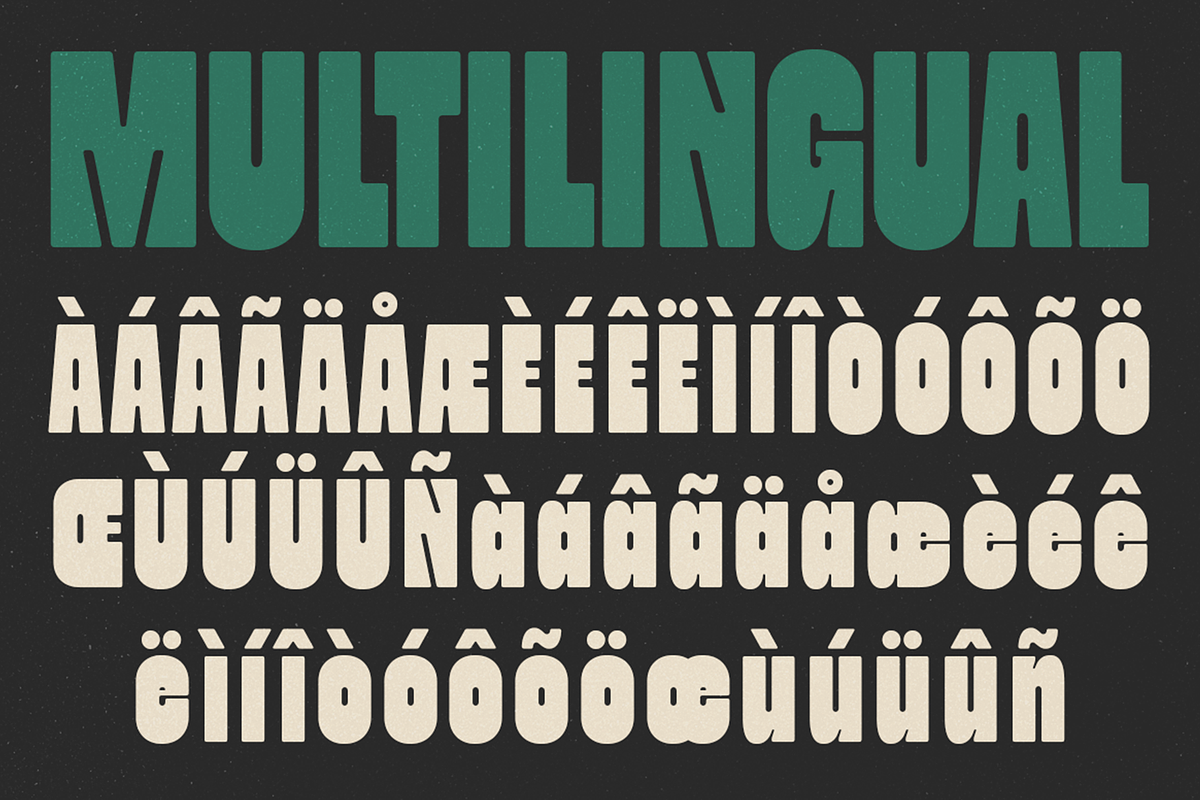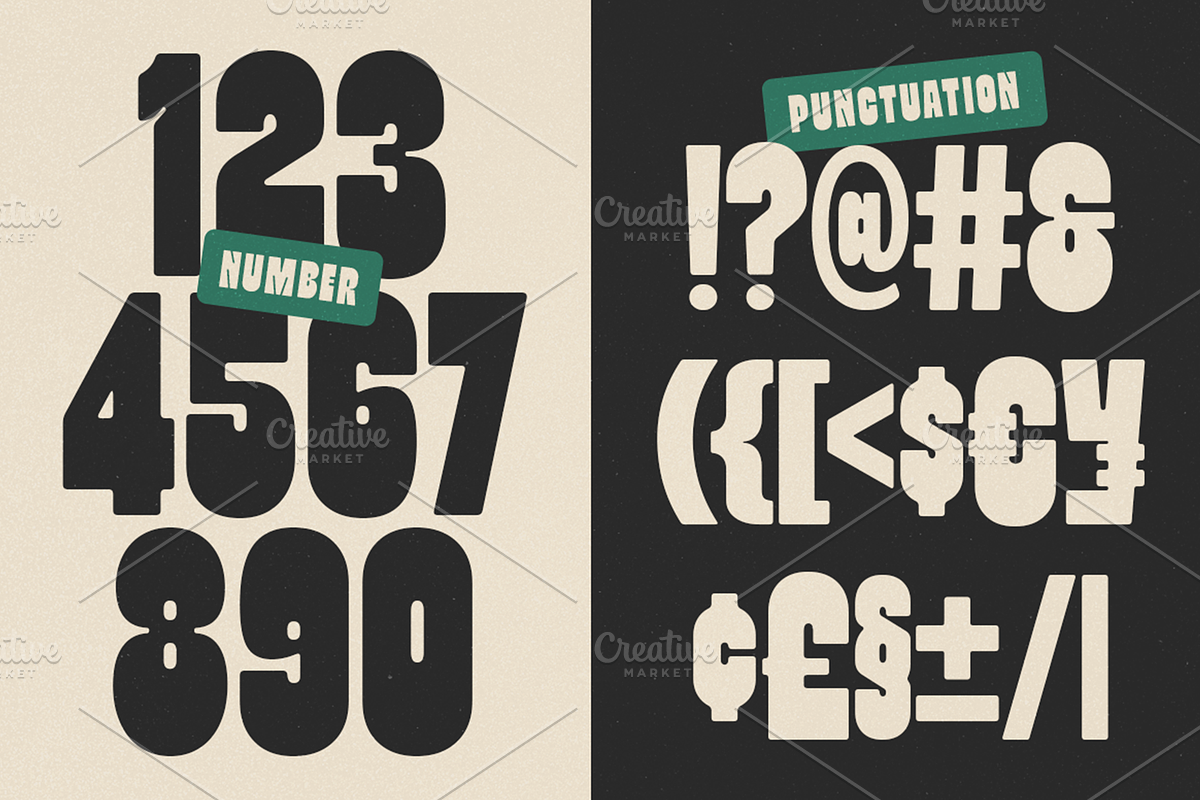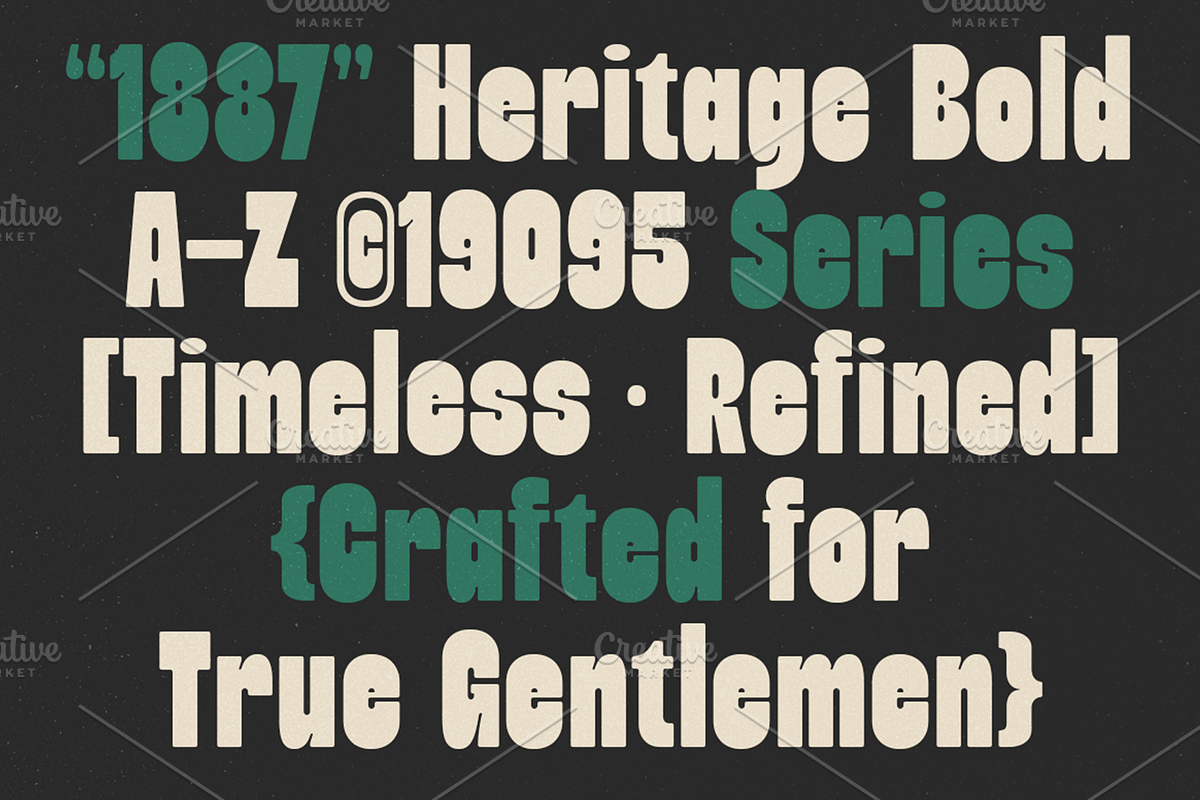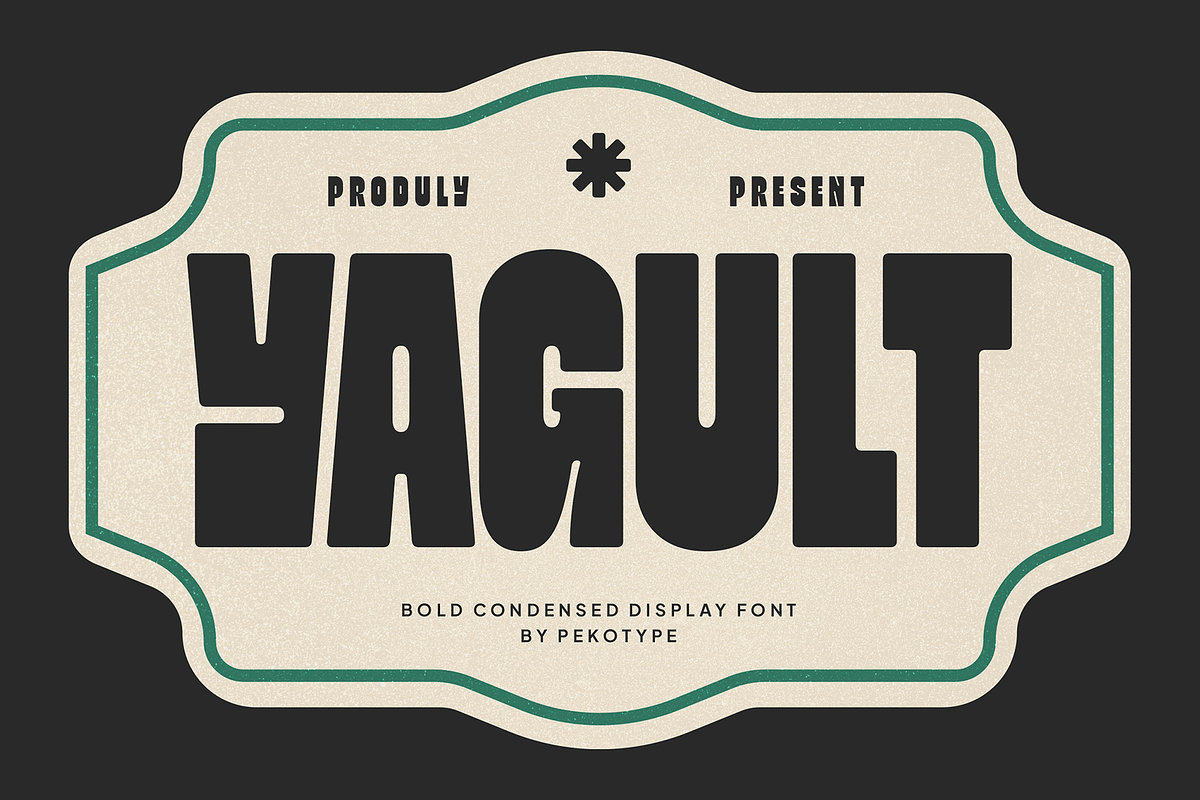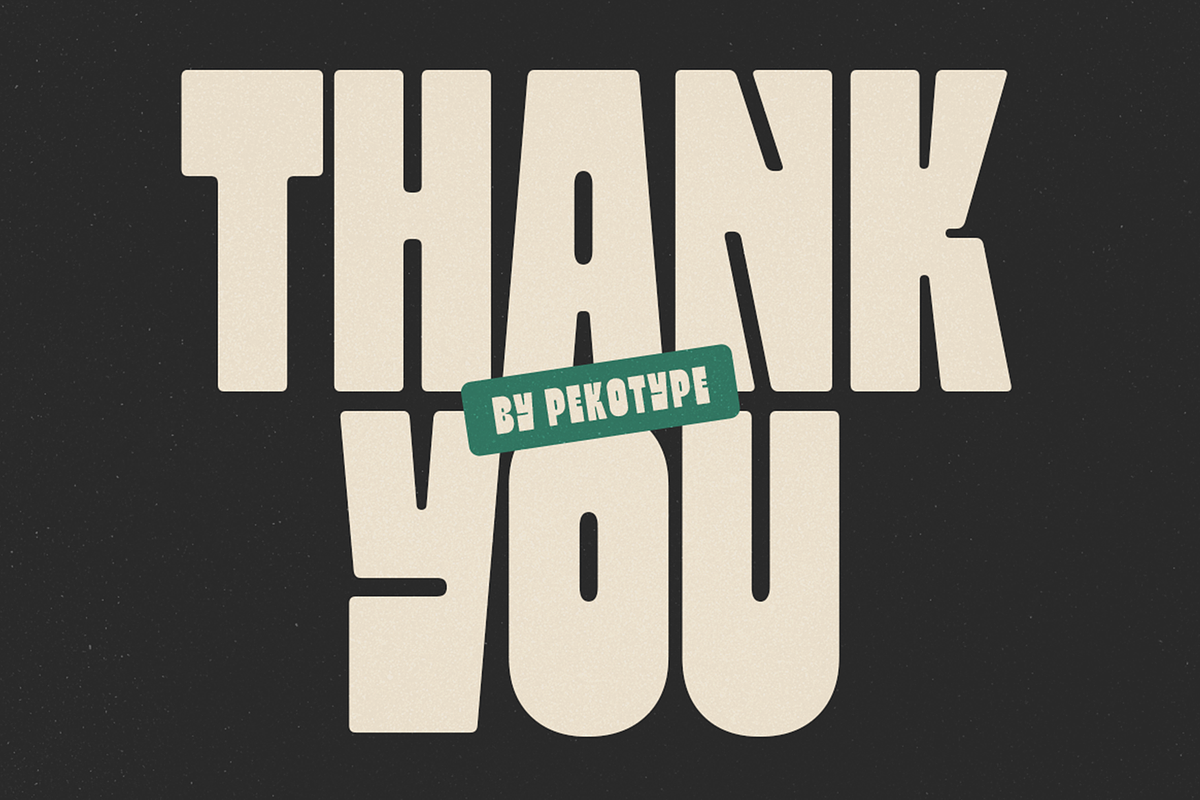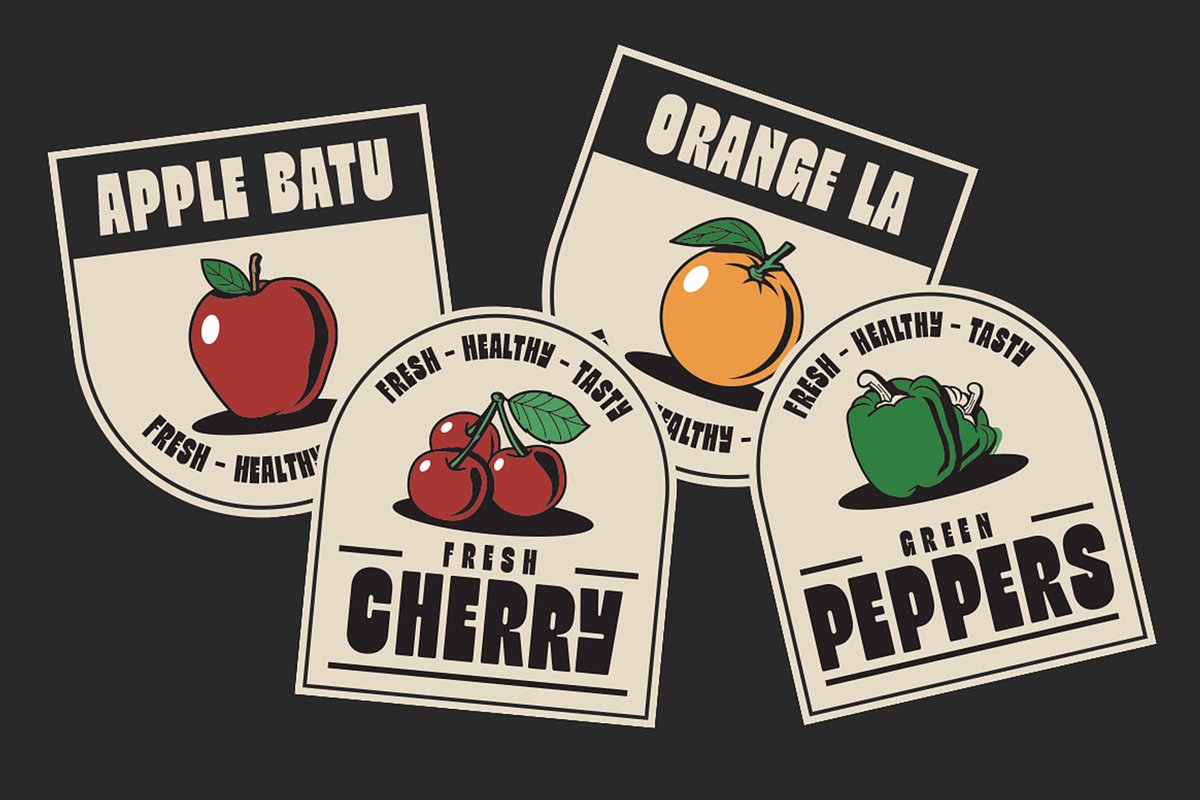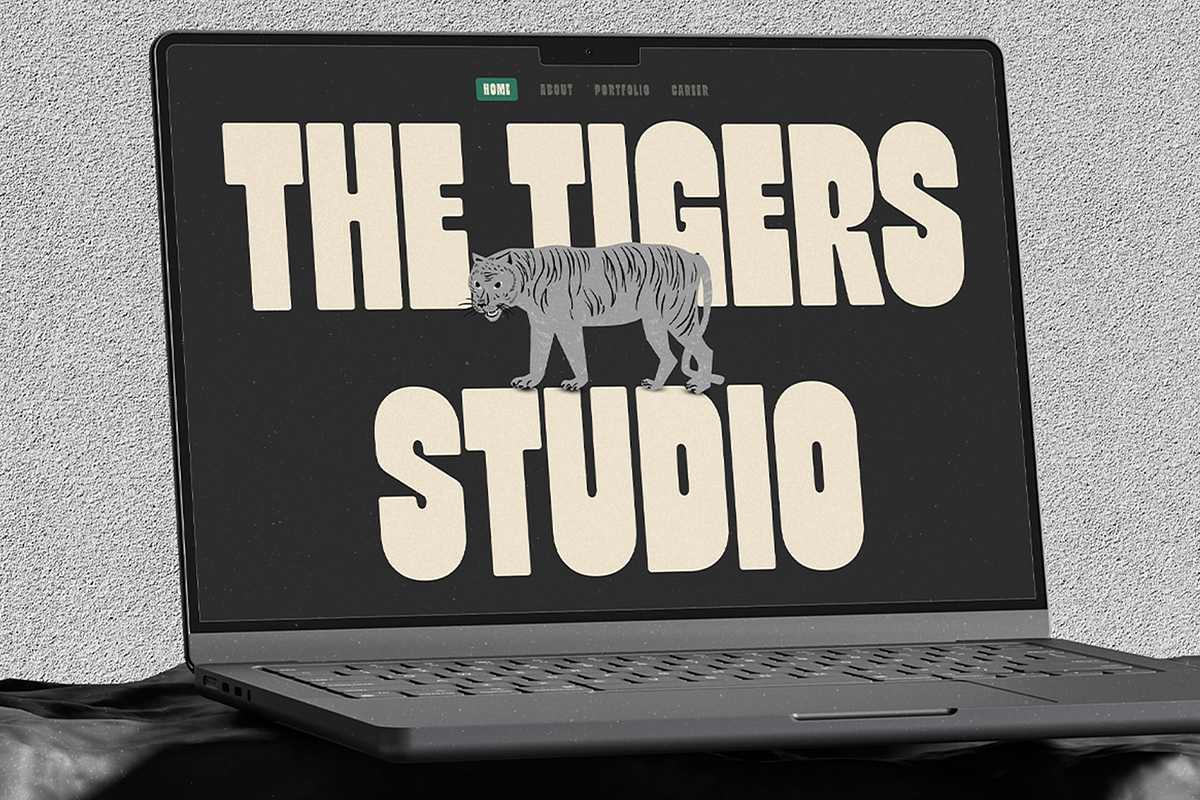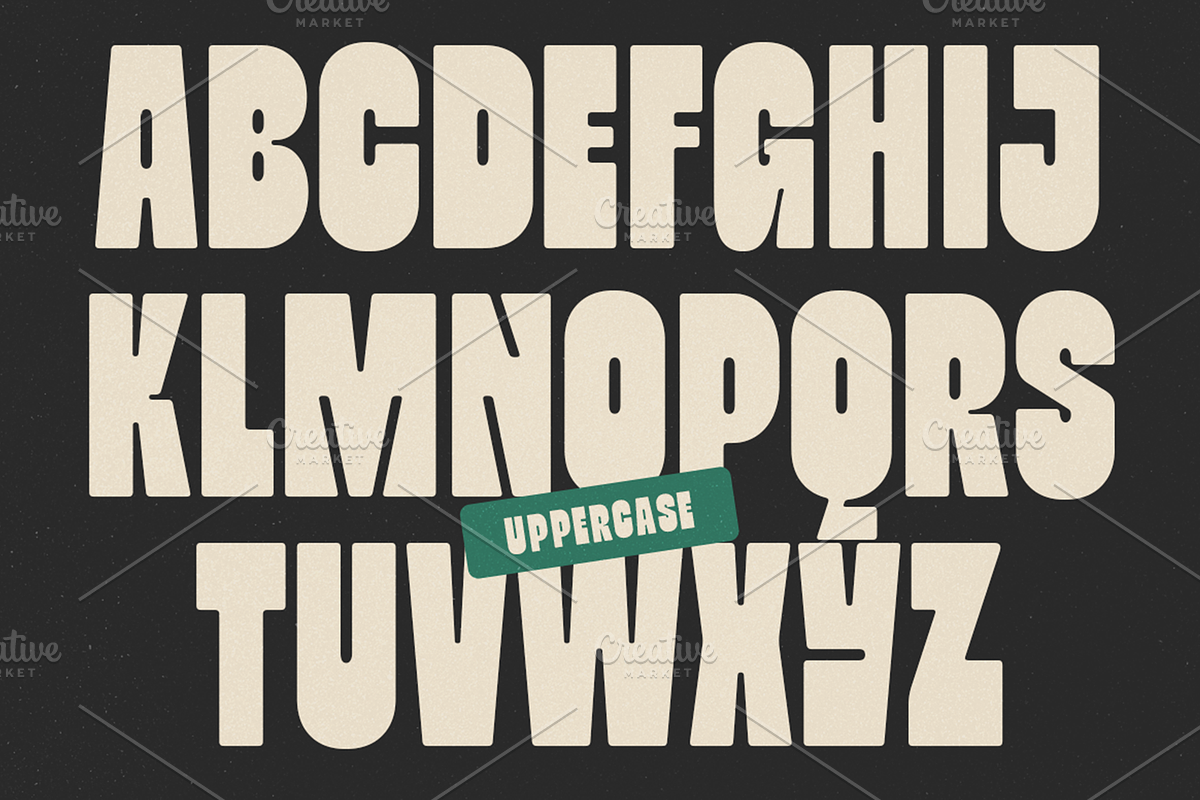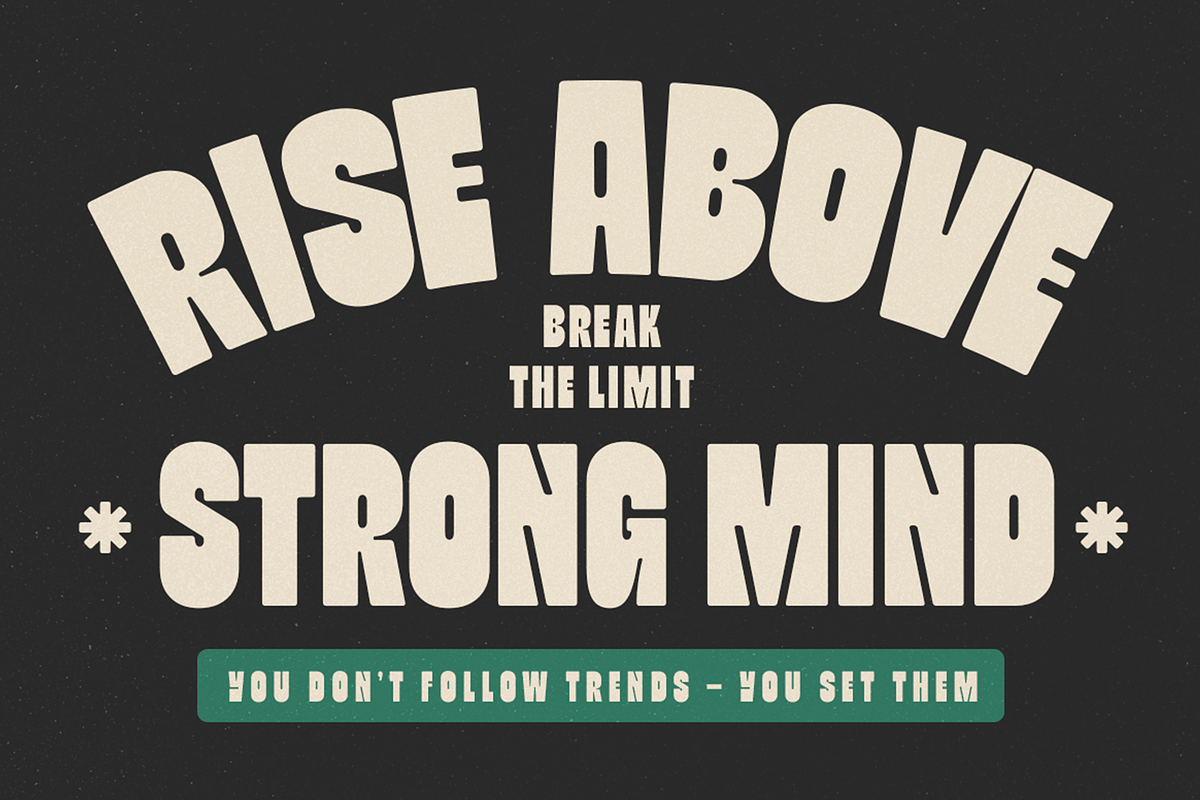
Yagult - Bold Condensed Display Font
YAGULT is a bold condensed display font with a strong vintage character and a clean modern touch. The thick letterforms and compact shapes make every word feel powerful, eye-catching, and full of personality. This font is designed to stand out while still staying simple and easy to read, perfect for designs that need a bold visual impact.
YAGULT works great for logos, posters, packaging, restaurant branding, coffee shops, food labels, streetwear, editorial layouts, signage, social media graphics, and retro-inspired projects. It fits perfectly with vintage, classic, masculine, bold, and handcrafted design styles. Whether you are creating branding for a café, food product, lifestyle brand, or creative studio, YAGULT helps your design look strong, stylish, and timeless.
Number, Symbol, & Punctuation